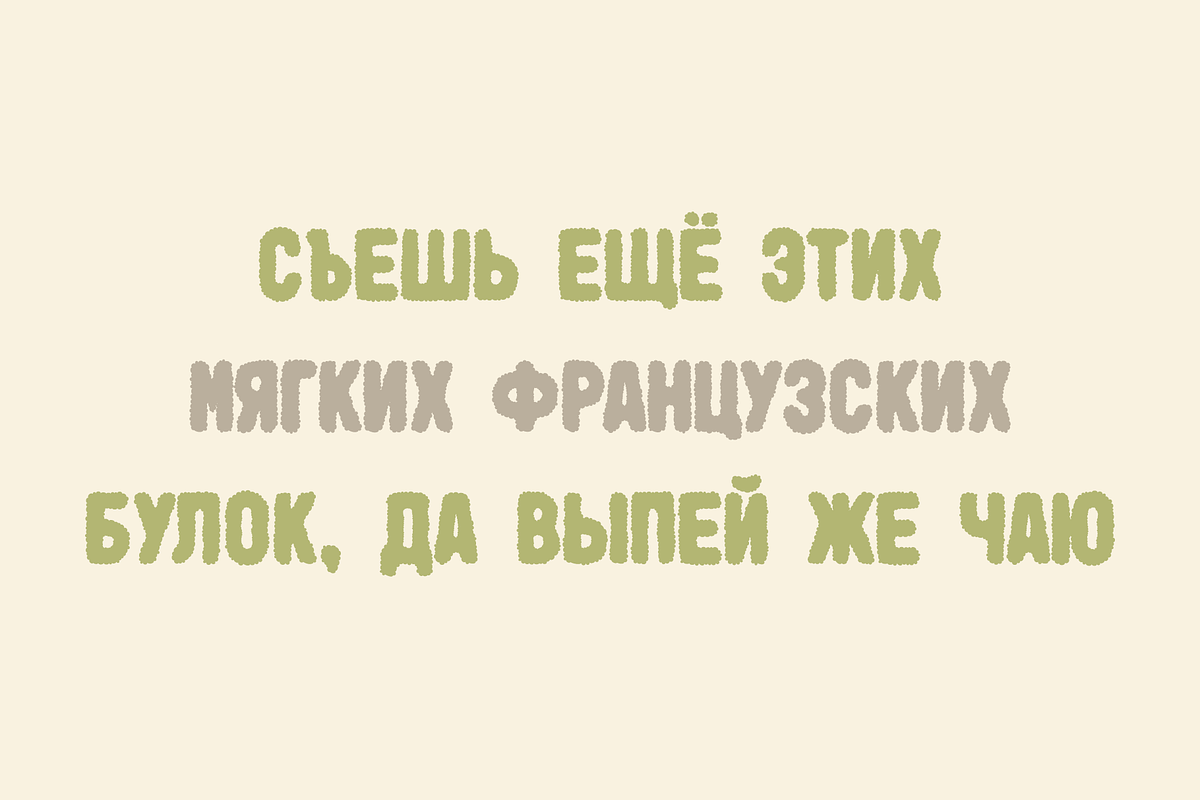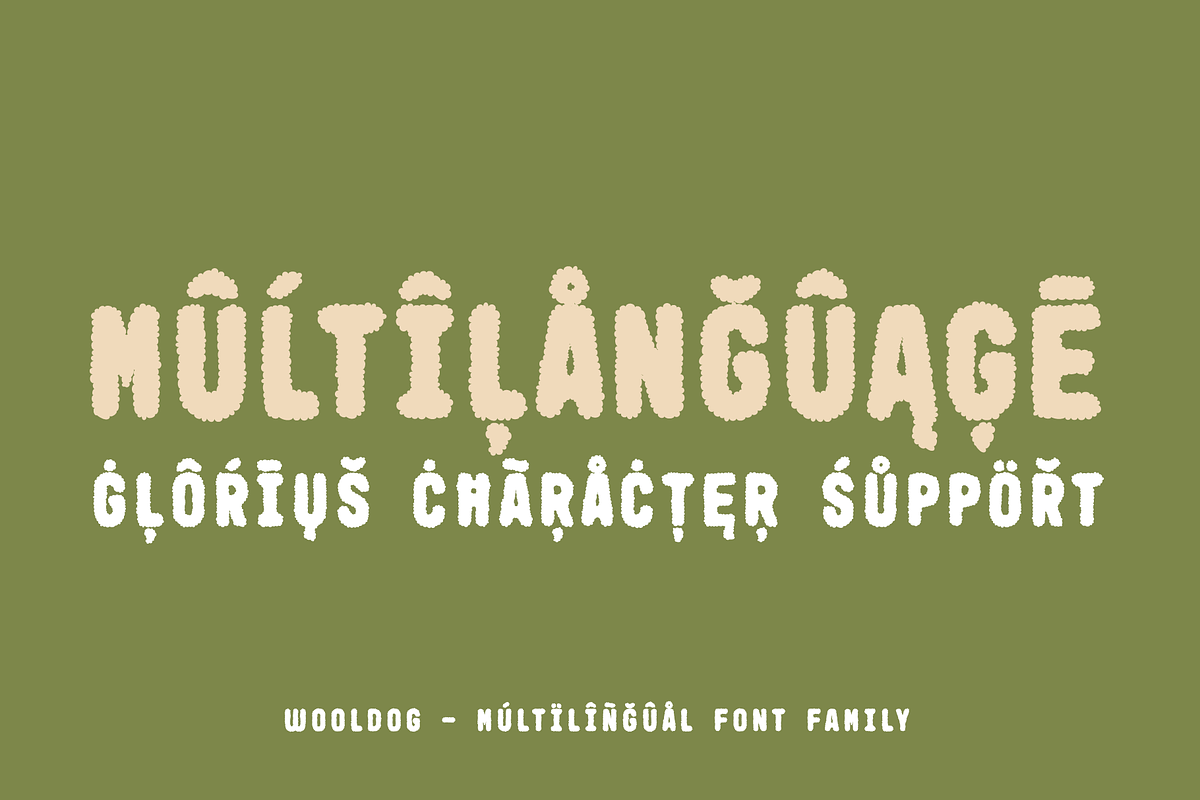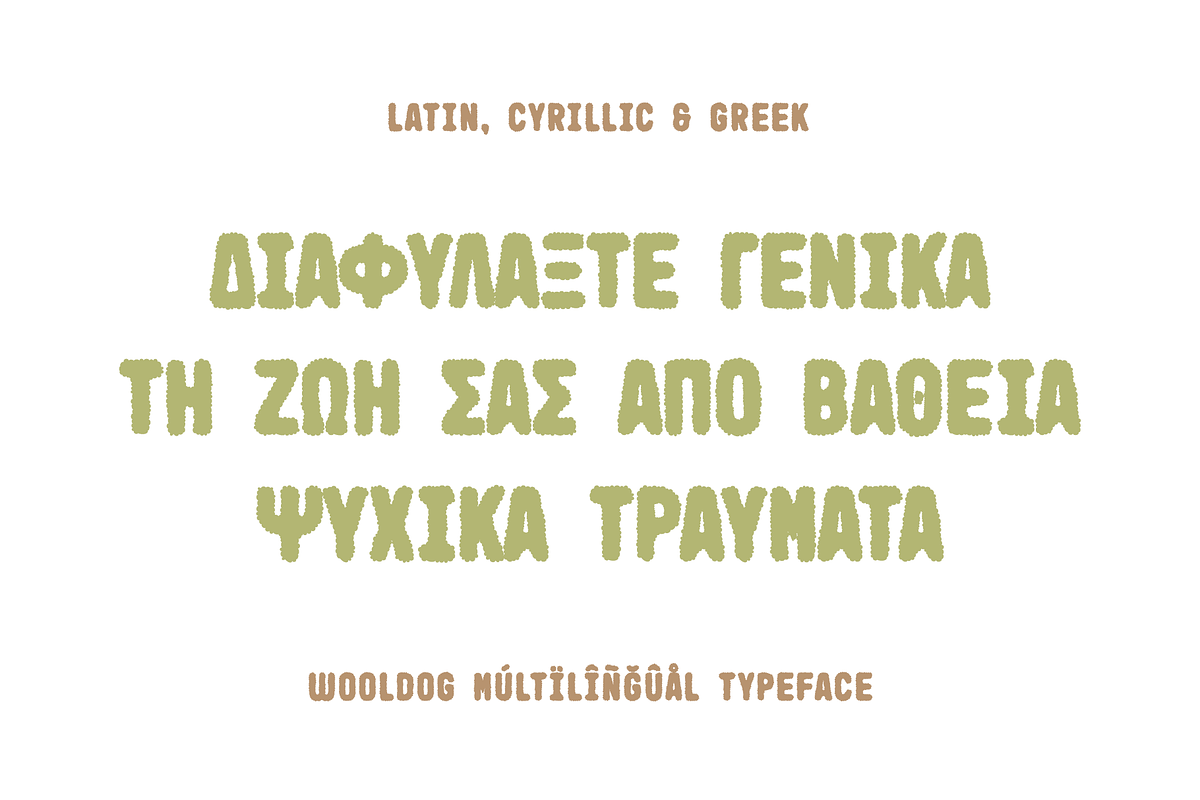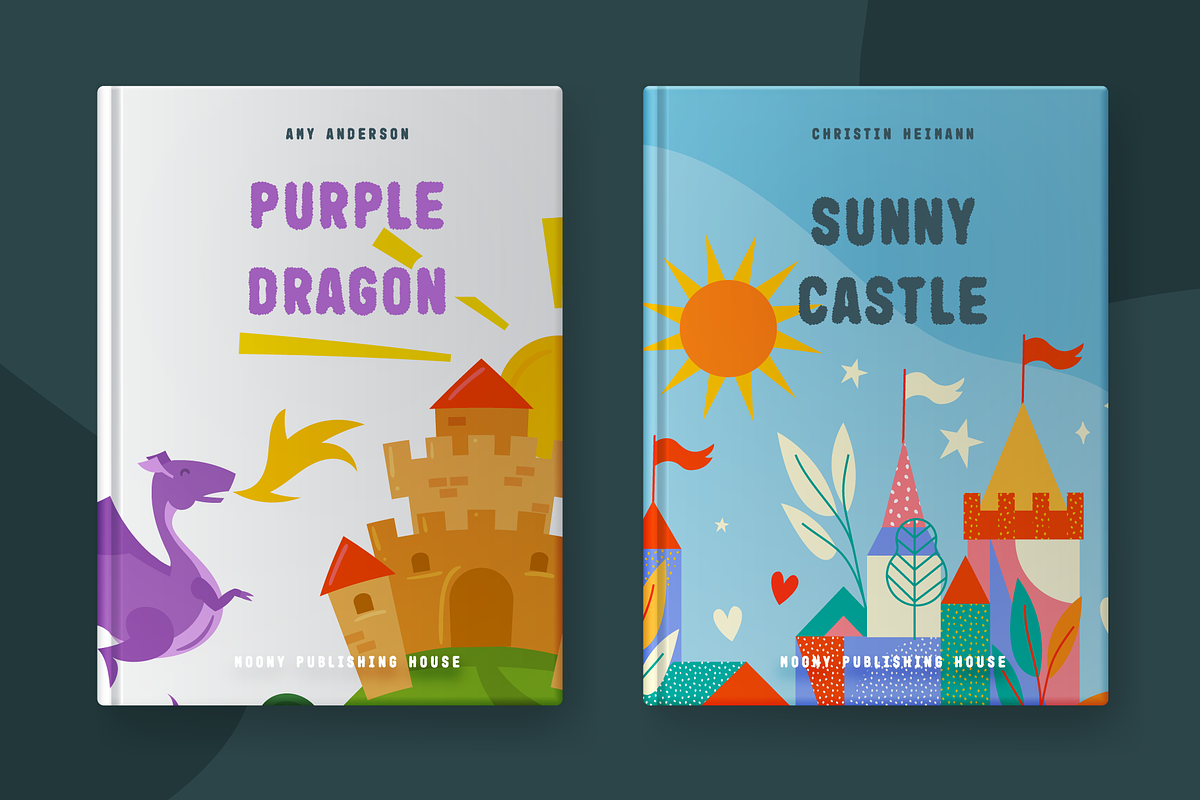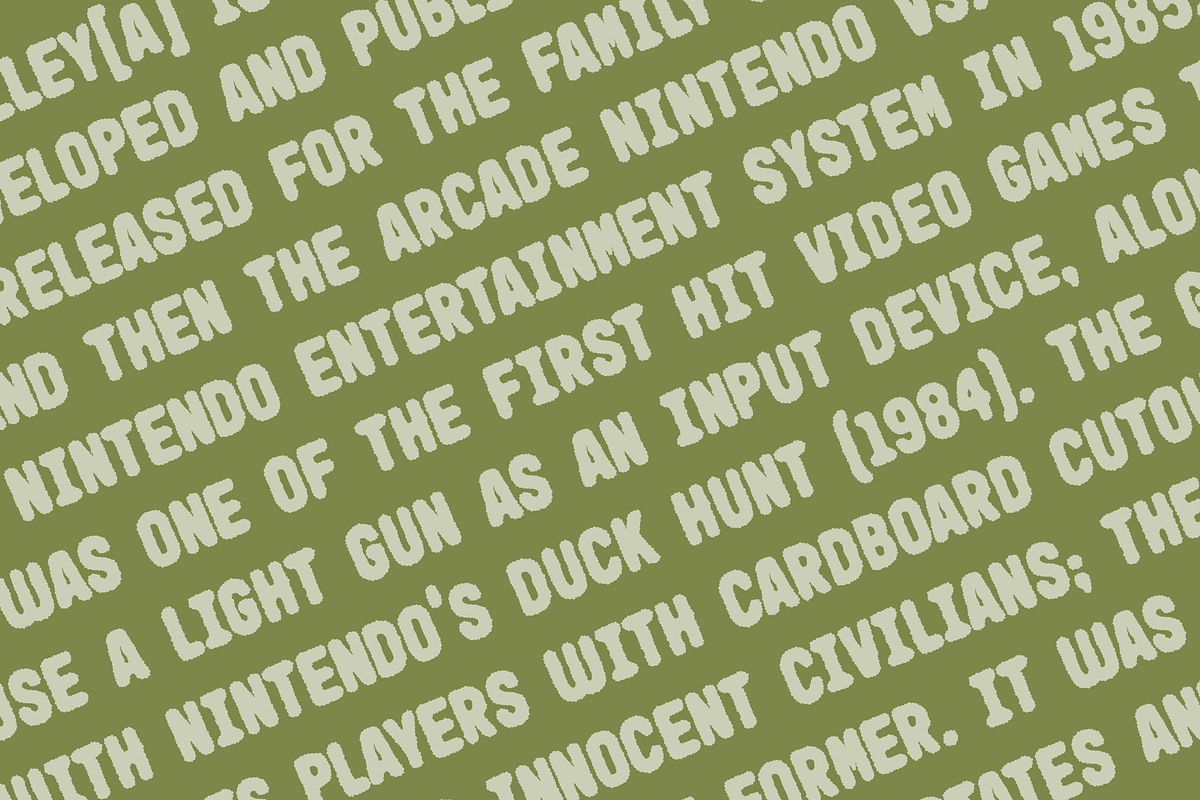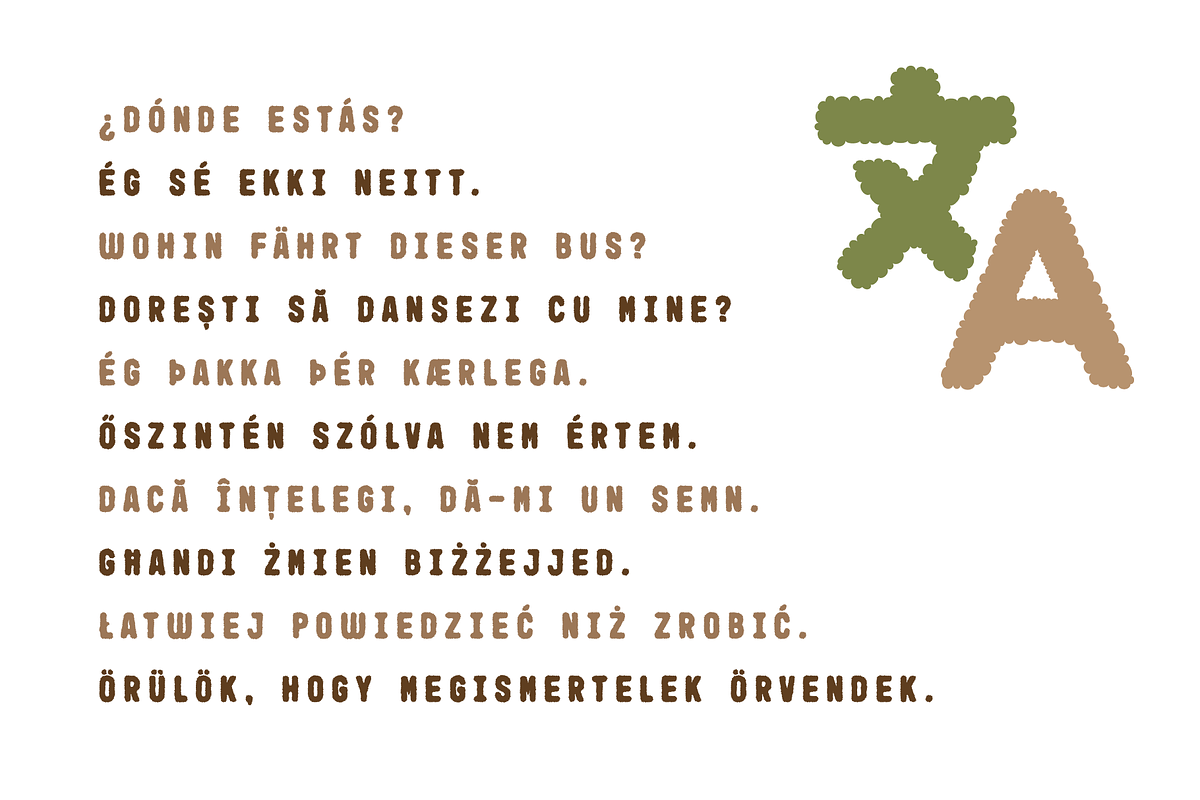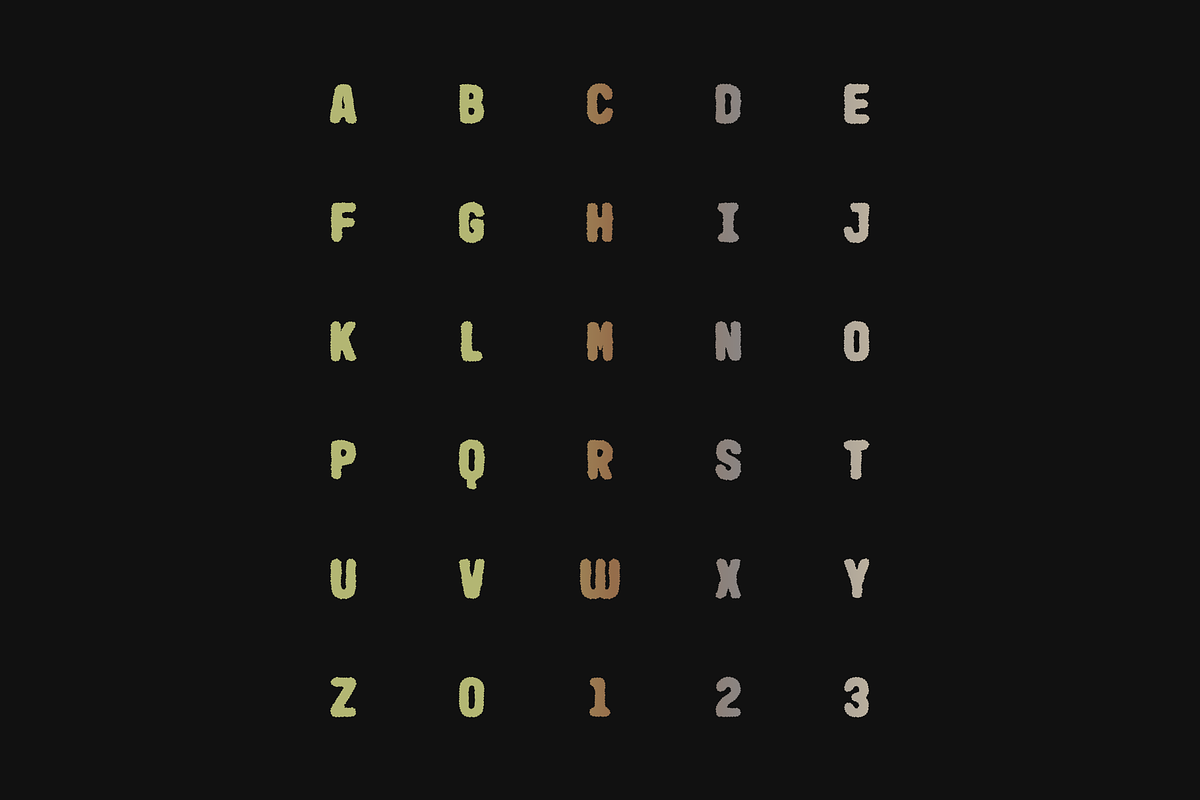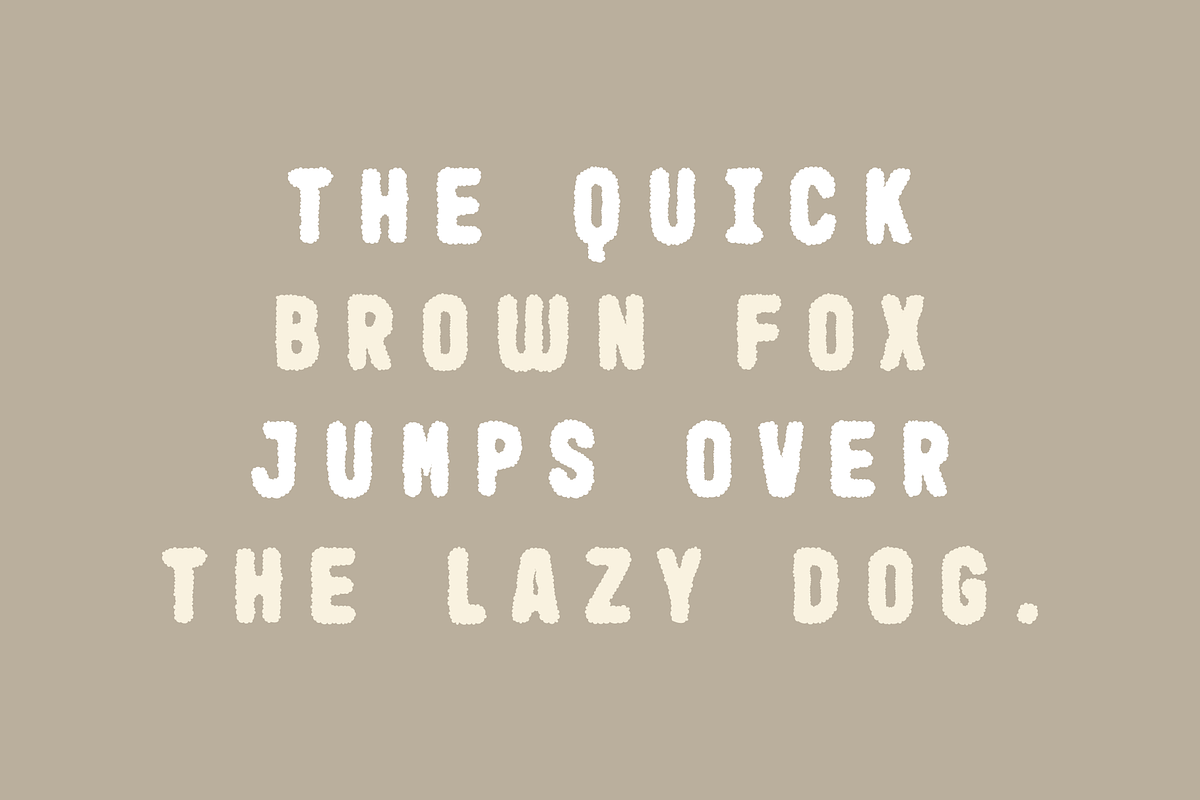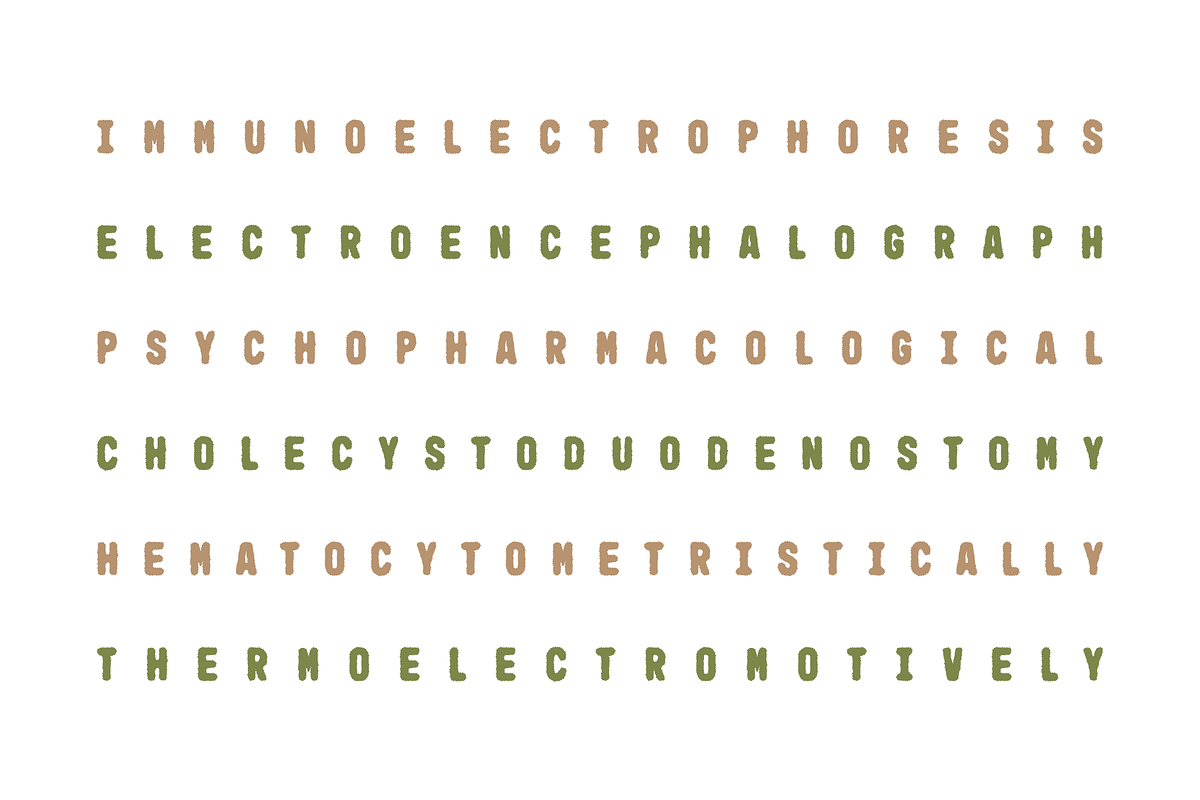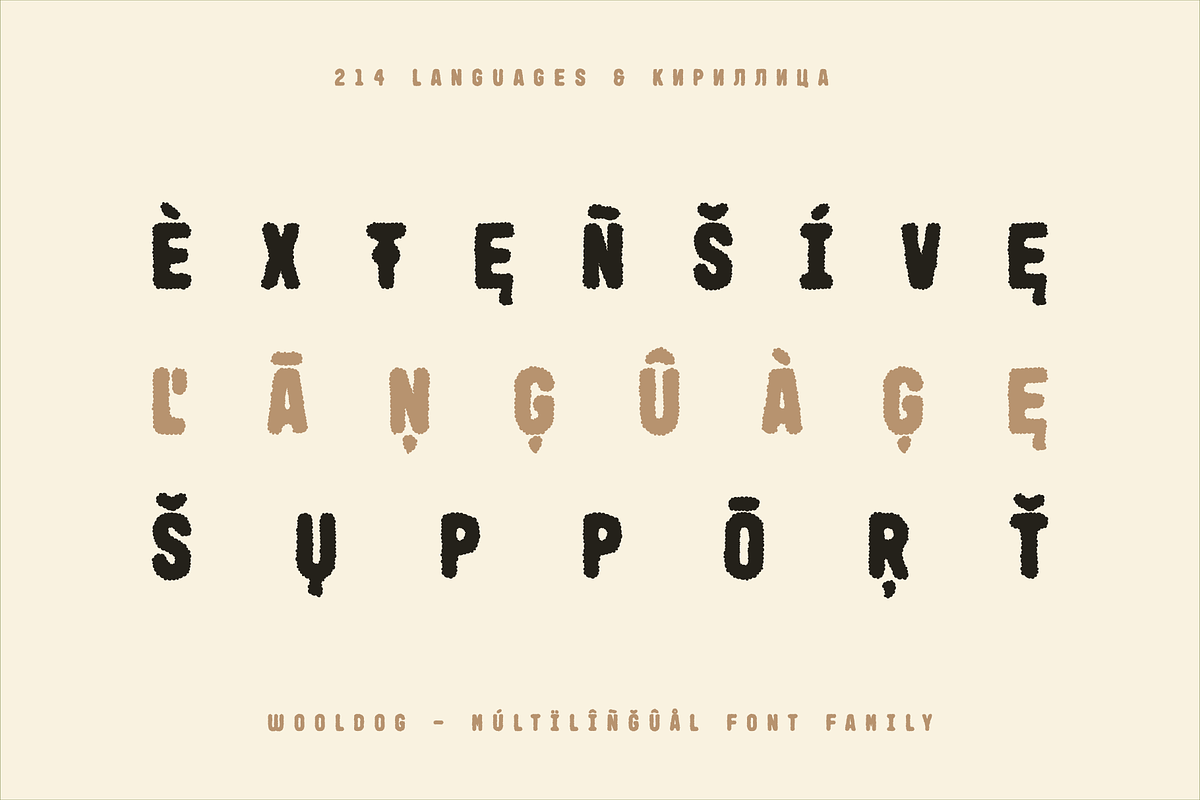
Wooldog Playful Typeface (10 Fonts)
Wooldog is a playful, ultra-bold display typeface inspired by the soft texture and rounded silhouette of wool, fleece, and plush materials. Built from a series of connected circular forms, each letter appears fluffy, tactile, and full of personality while maintaining strong readability and visual impact.
The design balances warmth and graphic strength through its distinctive scalloped edges, generous proportions, and carefully controlled spacing. Wooldog captures the charm of handcrafted textures while preserving the consistency and precision required for professional typography. The result is a versatile display family that feels both nostalgic and contemporary, making it suitable for a wide range of creative applications.
Whether used for branding, packaging, children's products, food labels, apparel graphics, posters, social media content, album covers, advertising campaigns, or playful editorial work, Wooldog instantly creates a friendly and memorable presence. Its soft contours and bold construction make headlines feel approachable while remaining highly visible at large sizes.
The family includes 10 styles, offering multiple textural interpretations ranging from clean and smooth to rough, noisy, outlined, and hazy variations. Matching italics further expand the creative possibilities, allowing designers to build expressive typographic systems while maintaining a cohesive visual identity.
With 597 glyphs and support for 214 Latin, Cyrillic, and Greek-based languages, Wooldog is designed for global communication. Extensive language coverage, professional character spacing, and a rich glyph set make it suitable for both international branding projects and localized design work.